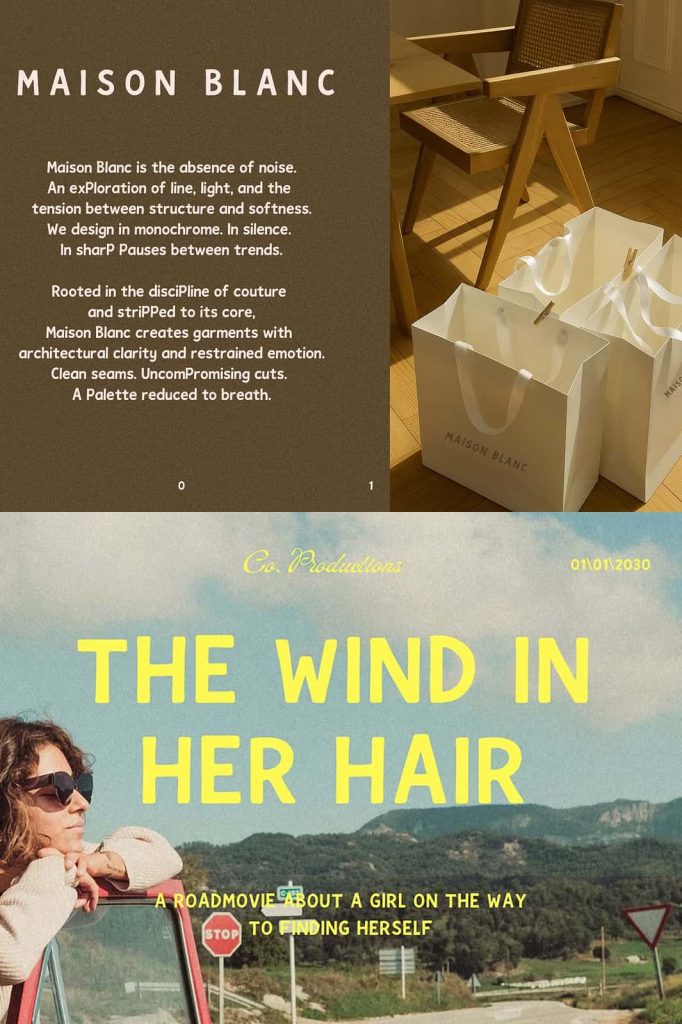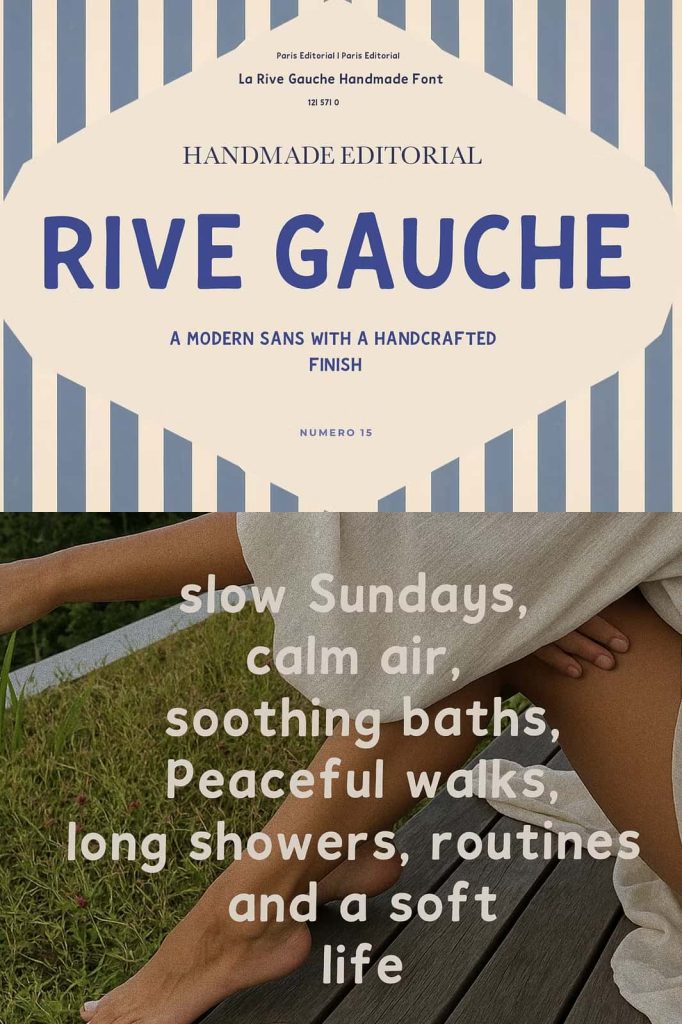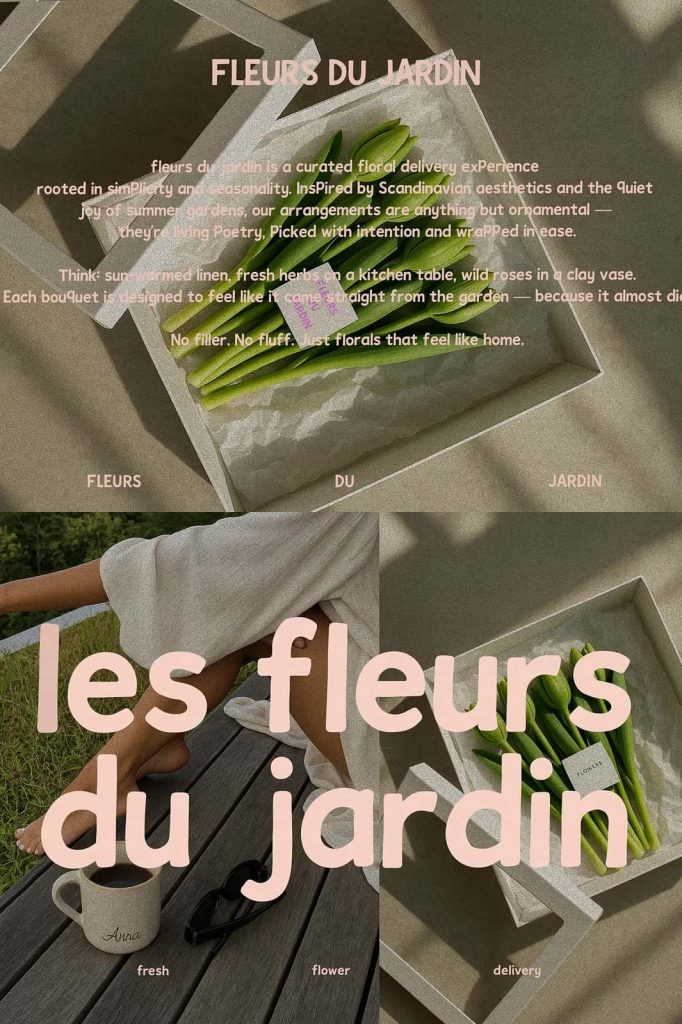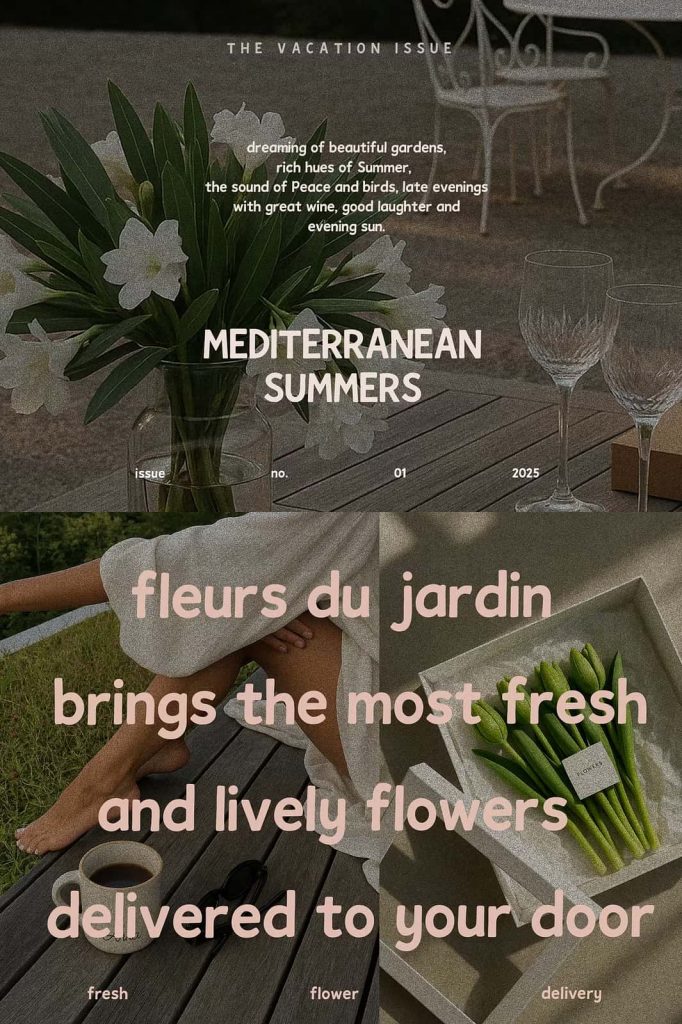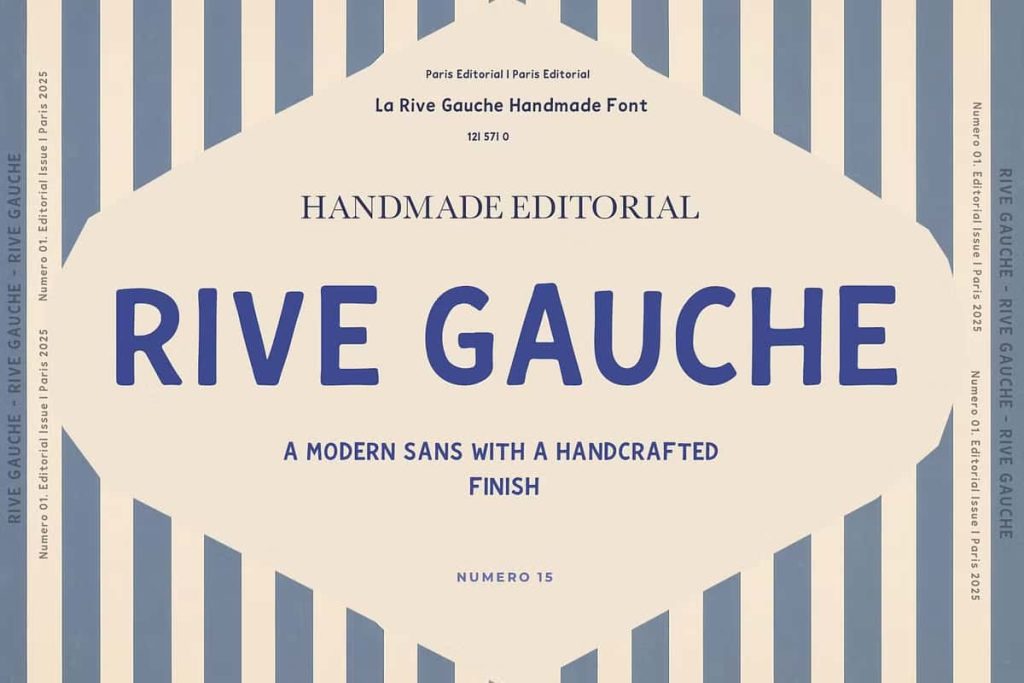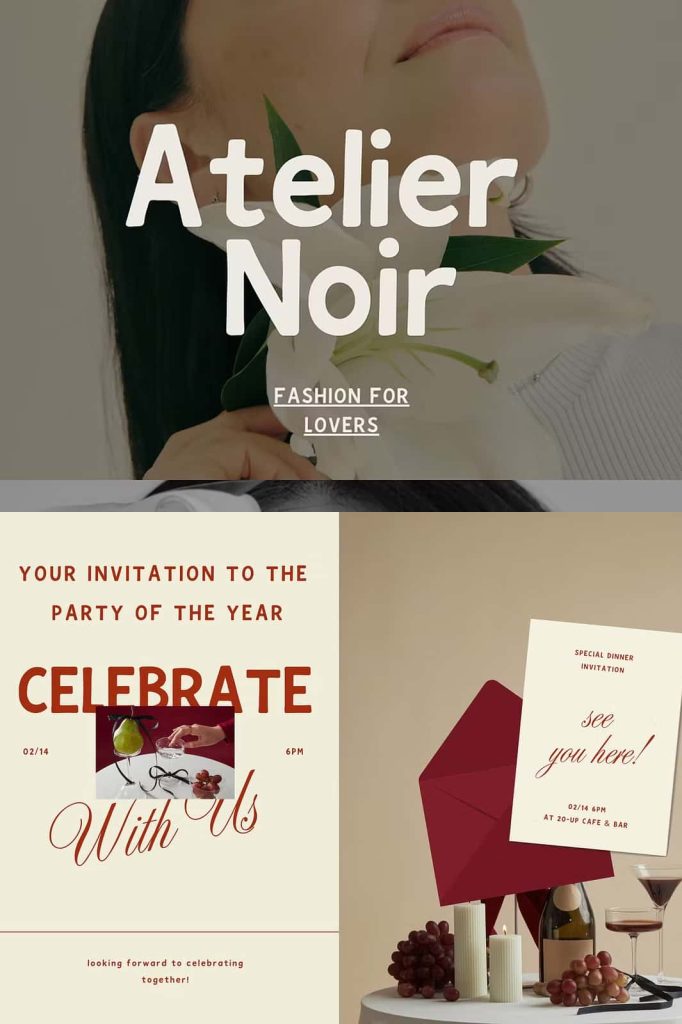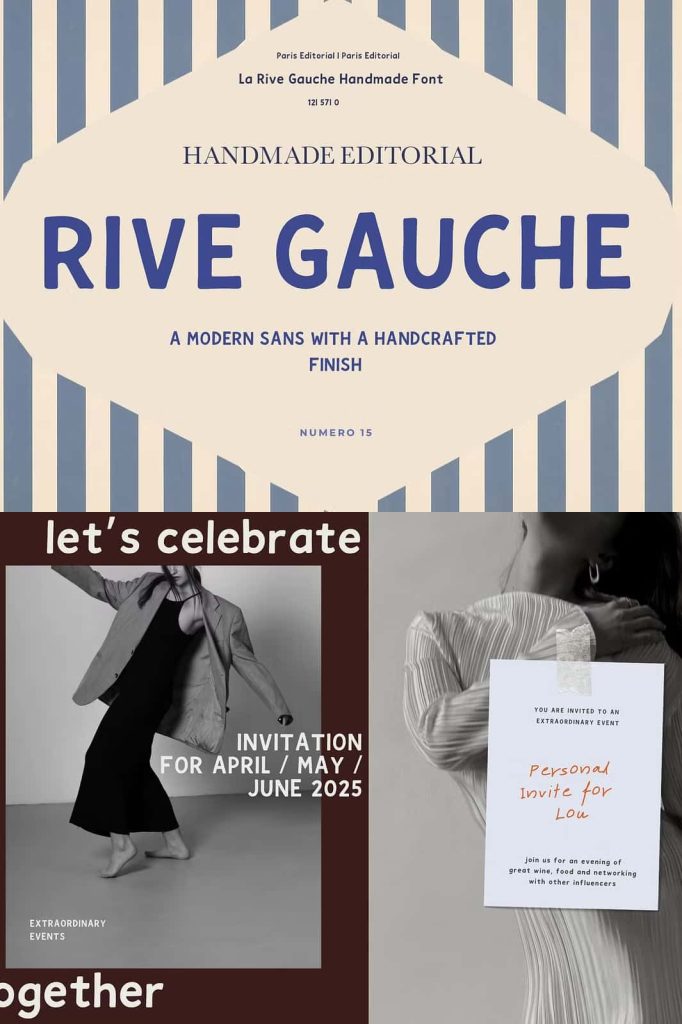
Rive Gauche Modern Sans Serif with Handwritten Elegance
Rive Gauche introduces a refined and contemporary typeface that blends the clarity of a modern sans serif with the subtle charm of a handwritten finish. This unique combination creates a balanced visual style that feels both structured and expressive. Designed for versatility and elegance, Rive Gauche allows designers to craft compositions that feel clean, stylish, and full of personality.
The font delivers a polished appearance while maintaining a soft, human touch. Its carefully designed letterforms provide consistency and readability, while the handwritten nuances add warmth and individuality. This balance makes Rive Gauche an ideal choice for projects that demand both professionalism and creative flair.
A Perfect Balance of Structure and Softness
Rive Gauche stands out by merging precision with subtle imperfection. The sans serif foundation ensures clarity and modern appeal, while the handwritten details introduce a natural flow that enhances visual interest. This combination creates a harmonious design language that feels effortless yet intentional.
Designers can actively use this font to create compositions that feel approachable without sacrificing sophistication. The clean lines establish a strong visual framework, while the soft curves and gentle variations add depth and character.
Designed for Contemporary Aesthetics
Rive Gauche reflects current design trends that favor minimalism with personality. It supports modern layouts by offering a clean and adaptable typographic solution that works across different styles. Whether used in bold headlines or subtle supporting text, the font maintains a consistent and elegant presence.
Ideal for Editorial Layouts
Rive Gauche enhances editorial design with its refined and readable structure. It performs exceptionally well in magazines, blogs, and digital publications where clarity and visual appeal play a crucial role. The font helps designers organize content effectively while maintaining a sophisticated tone.
By combining structure with softness, Rive Gauche allows editorial layouts to feel engaging and polished. It supports strong typographic hierarchy, making it easier to guide readers through content in a natural and visually pleasing way.
Create Engaging Reading Experiences
With Rive Gauche, designers can build layouts that encourage readers to stay engaged. The font’s balanced design reduces visual fatigue while adding a subtle artistic touch that keeps content interesting. This makes it a valuable tool for long-form content and feature articles.
Elevate Social Media and Digital Content
Rive Gauche performs exceptionally well in social media design, where visual impact and clarity are essential. Its clean yet expressive style helps content stand out in crowded feeds. Designers can use it to create quotes, promotional graphics, and branded posts that feel modern and cohesive.
The font’s versatility allows for creative experimentation while maintaining consistency. By mixing different weights and sizes, designers can craft dynamic visuals that capture attention and communicate messages effectively.
Perfect for Branding and Visual Identity
Rive Gauche supports branding projects that require a modern and elegant aesthetic. Its unique blend of structure and personality helps brands communicate authenticity and style. The font works well for logos, brand marks, and identity systems that aim to feel minimal yet distinctive.
Designers can actively use Rive Gauche to build cohesive brand experiences across multiple platforms. Its adaptability ensures that branding remains consistent in both print and digital applications.
Minimalist Logos with Character
Rive Gauche excels in logo design, especially for brands that value simplicity with a touch of uniqueness. The font’s subtle handwritten influence adds character without overpowering the design, allowing logos to remain clean and memorable.
Versatile for Fashion-Forward Visuals
Rive Gauche aligns perfectly with fashion and lifestyle design projects. Its elegant and modern aesthetic complements visual storytelling in lookbooks, campaigns, and promotional materials. The font enhances imagery by adding a refined typographic layer that feels both stylish and contemporary.
Designers can use Rive Gauche to create visuals that resonate with modern audiences. Its effortless style supports bold creative direction while maintaining a sense of sophistication.
Bring Effortless Elegance to Your Work
Rive Gauche empowers designers to create work that feels clean, expressive, and visually balanced. Its thoughtful design bridges the gap between minimalism and personality, making it suitable for a wide range of creative applications.
By choosing Rive Gauche, you gain a versatile typeface that adapts to your creative vision while maintaining a strong and consistent identity. It transforms simple typography into a refined design element that enhances every project with effortless elegance.